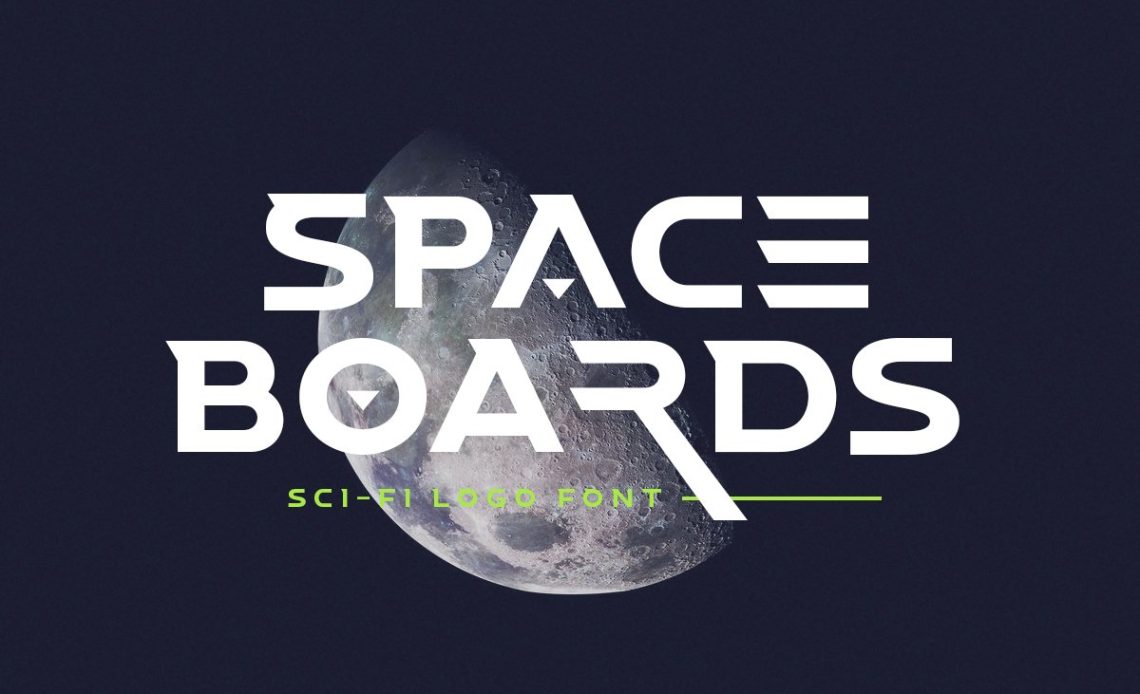
Welcome to the world of futuristic and modern design with Space Boards - Sci-Fi Logo Font! This exceptional font is specifically created by Sarid Ezra for those seeking a modern logo font that stands out. With Space Boards, you can take your design to the next level and make your hi-tech logotype more unique and eye-catching.
This sans-based font family features unique lowercase and uppercase letters that set it apart from other fonts. It is perfect for creating a sci-fi movie poster or any design that needs a futuristic touch. The Space Boards font family is not only visually appealing but also supports multiple languages.
Mix and match the uppercase and lowercase letters to create a one-of-a-kind logo that stands out in a crowded market. With Space Boards, you can give your brand a distinct look and feel that represents your brand's unique personality.
Whether you are designing a logo for a tech company, a gaming brand, or any other modern business, Space Boards is the perfect font to make your design pop. Its captivating style and unique features are sure to catch the attention of your target audience.